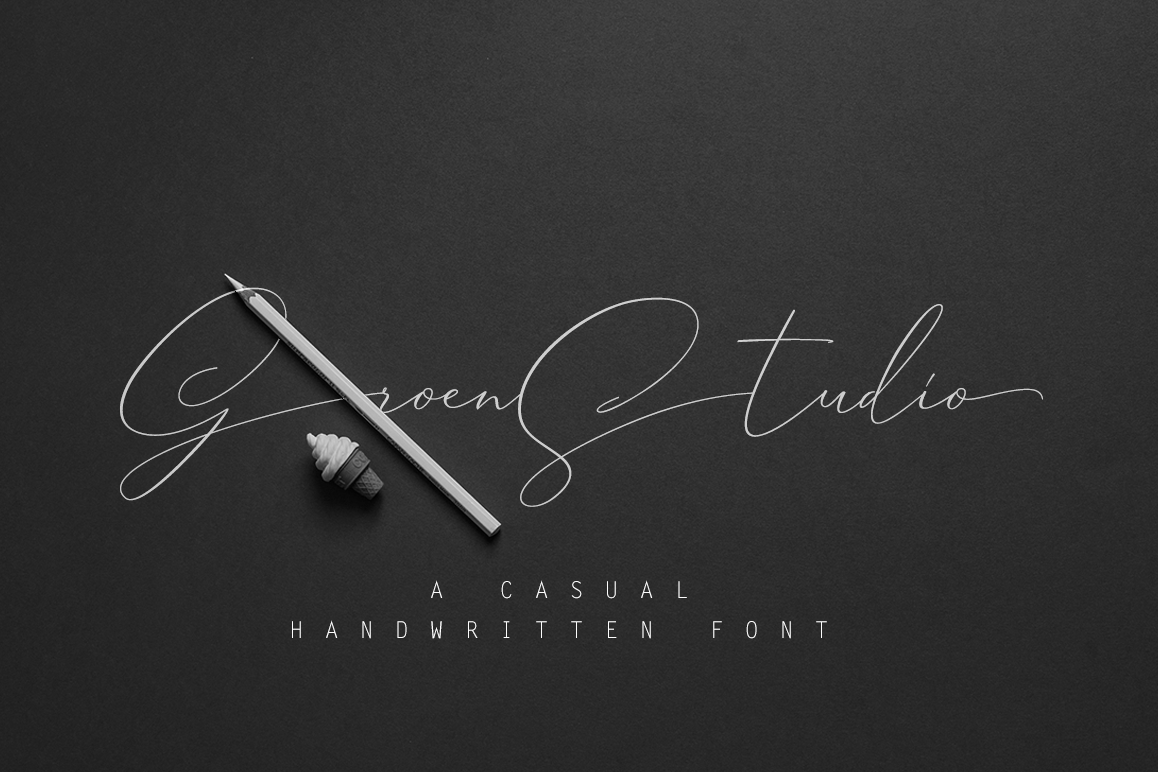
Groen Studio a work that is purely a result of handwriting, has a natural characteristic. this is perfect for invitations, signatures, blogs, social media, business cards, product brands.Groen Studio has Stylistic standard, Stylistic Alternate, Stylistic Sets and ligatures. and includes uppercase and lowercase letters, numbers and punctuation marks.FILE INCLUDE